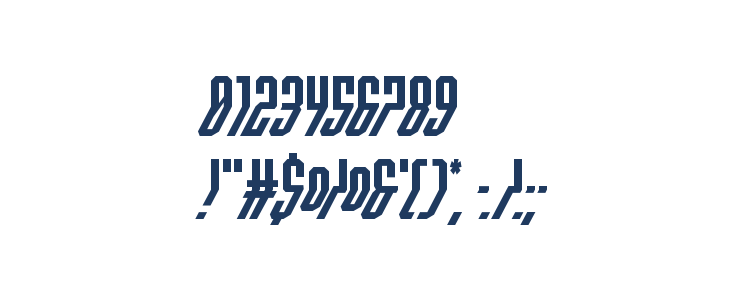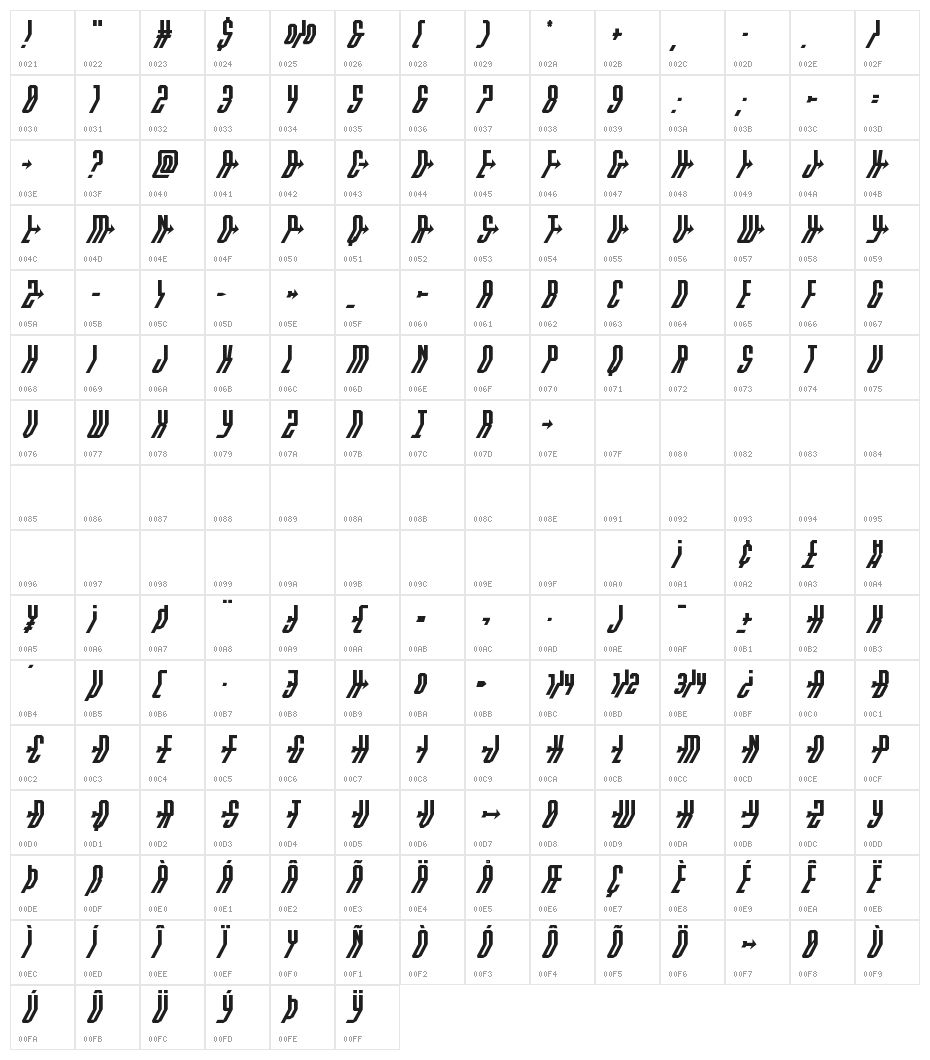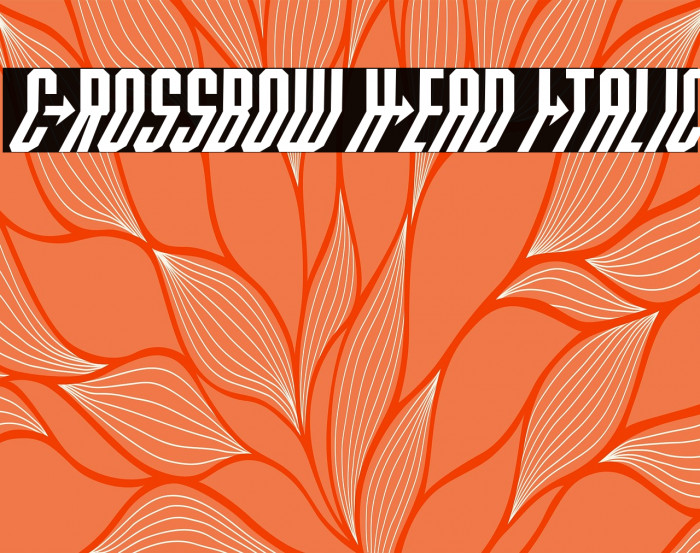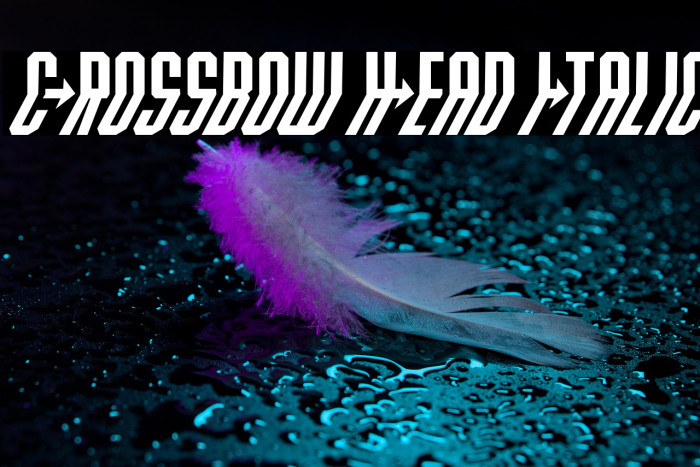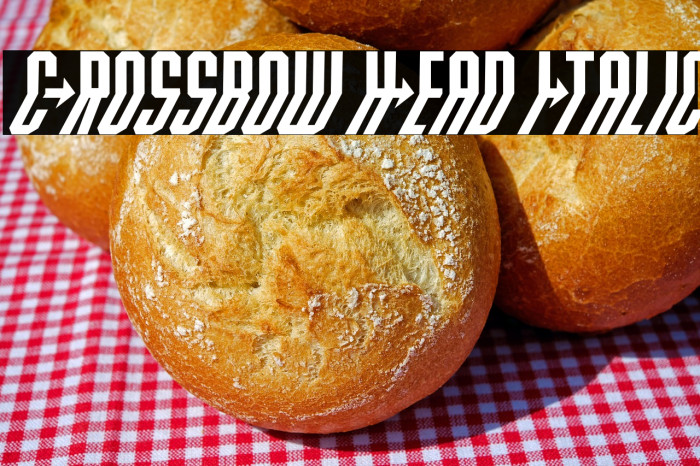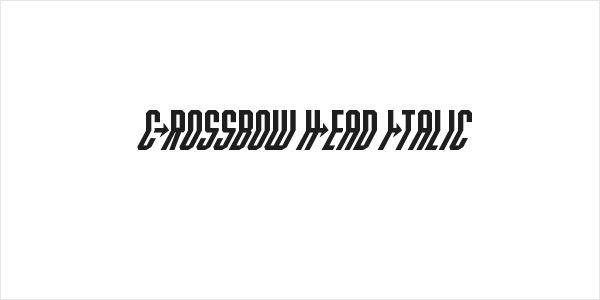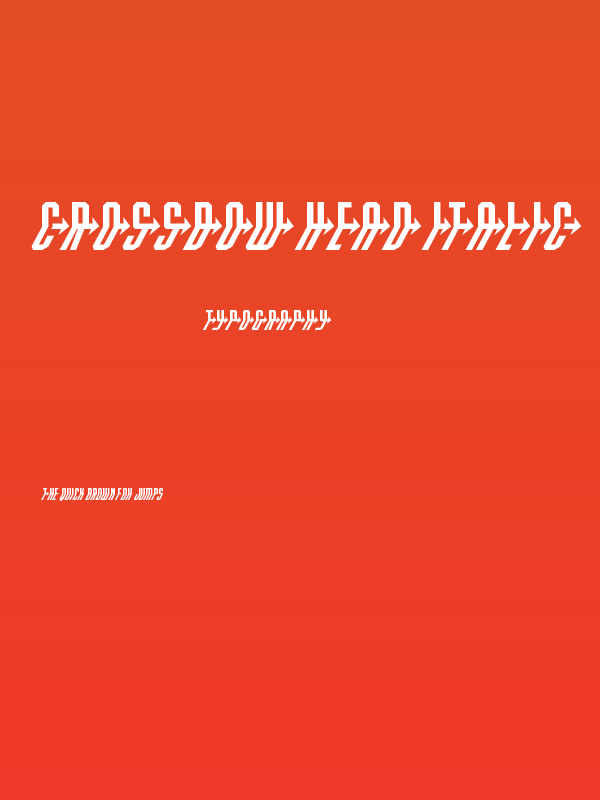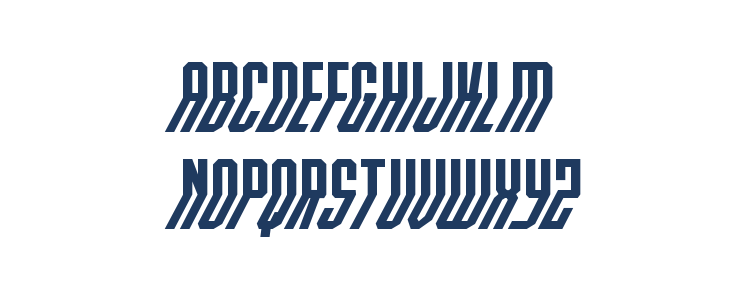
Crossbow Head Italic Font
Crossbow Head Italic Description
This font features a bold and dynamic design with a distinct italic slant, giving it a sense of motion and energy. The characters are angular and geometric, with sharp edges and a futuristic aesthetic. The uppercase and lowercase letters maintain a consistent style, while the numerals and special characters complement the overall look. The font's unique arrow-like elements within the letters add a decorative touch, making it stand out for creative projects.